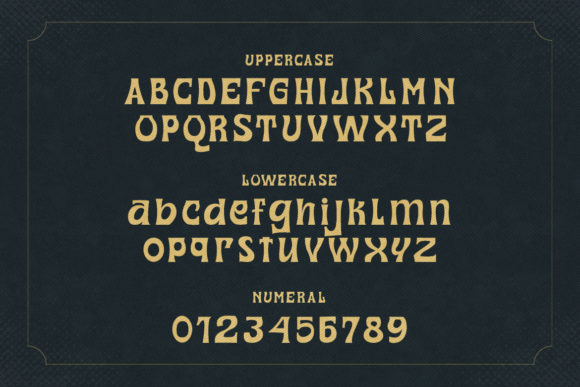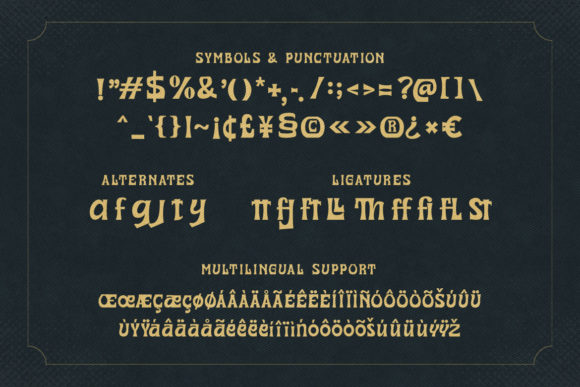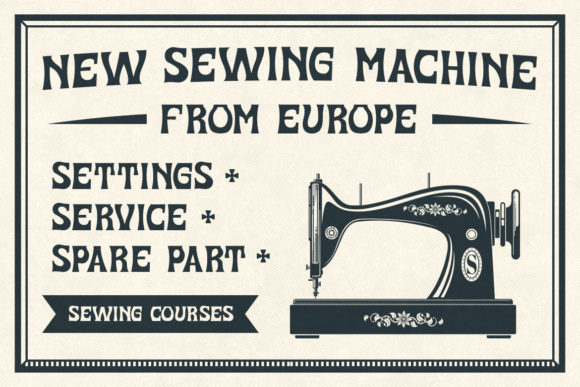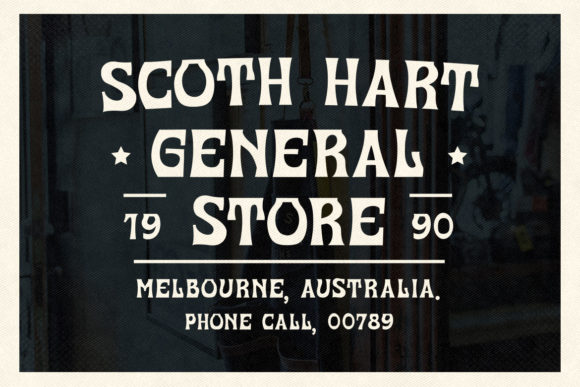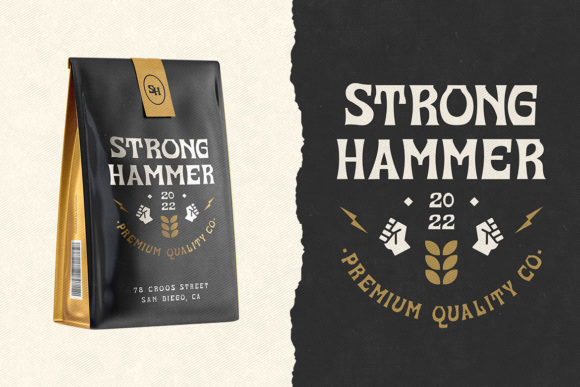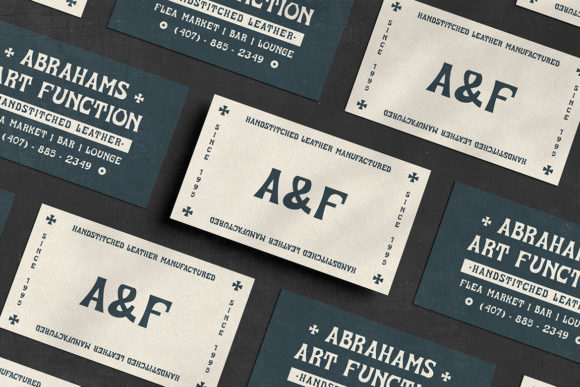
Introduction to Romeda Font
Have you ever found yourself rummaging through your grandfather’s attic, unearthing a treasure trove of old letters and postcards? The worn, yellowed paper, the elegant handwriting, and the nostalgic feel of a bygone era – it’s a moment that sparks creativity and transports us to a different time. That’s exactly the feeling you’ll get when using the Romeda Font in your next creative project.
Designed to evoke the charm of the Mid-19th Century, the Romeda Font is a stunning display font that’s perfect for adding a touch of elegance to your designs. Whether you’re working on a high-quality brochure, a free download, or a design resource for a client, this beautiful font is sure to impress. With its transparent background and beautiful arrangement of letters, the Romeda Font is a valuable addition to any designer’s toolkit.
Key Features of Romeda Font
- High-quality, vector-based font designed for creative projects and digital applications.
- Comes with a transparent background, making it easy to overlay on images or use as a design element.
- Designed with a modern aesthetic, making it a versatile design resource for a wide range of creative projects.
- High-resolution design, suitable for use in print and digital applications at resolutions up to 300 DPI.
Honest Review: Romeda Font
As a designer, I’m always on the lookout for high-quality design resources to elevate my creative projects. The Romeda Font has been a game-changer for me, offering a beautiful and versatile font that’s perfect for any design task.
- ✨ Elegant and sophisticated design aesthetic that’s perfect for corporate and creative projects
- ⚠️ Limited character set, which may not be ideal for projects requiring extensive language support
- ⚠️ Not ideal for use as a headline font due to its relatively small character size
Overall, the Romeda Font is a solid addition to any designer’s toolkit. Its elegant design and high-quality features make it an excellent choice for creative projects, and the free download option is a definite bonus. While it may have some limitations, I highly recommend giving it a try.
Romeda Font is ideal for various design projects, including logos, brochures, and business cards. Its high-quality design makes it perfect for creative projects where you want to make a lasting impression.